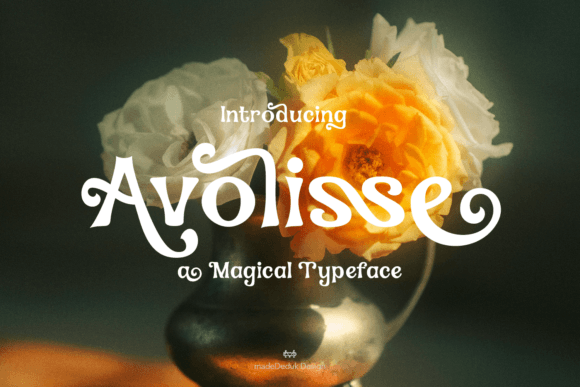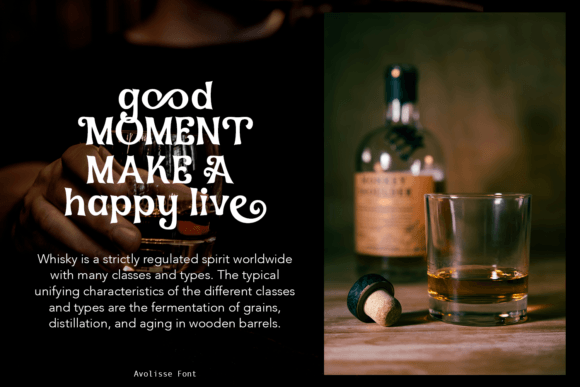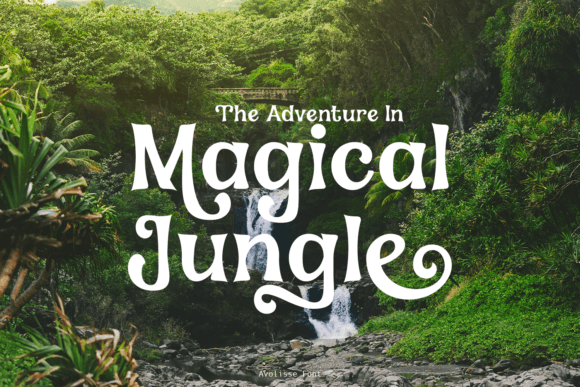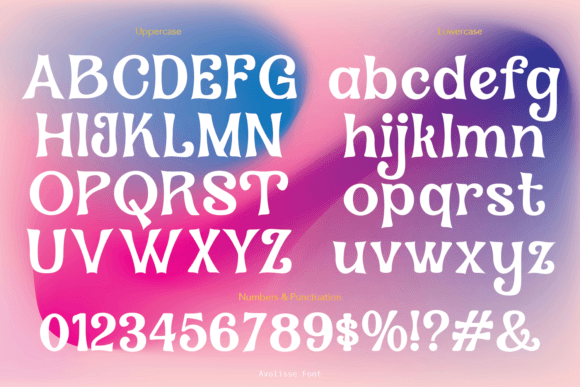
Avolisse Font: Retro 80s Display Font for Eye-Catching Headlines!
About the Avolisse Font
Elevate your designs with Avolisse Font, a font that combines sophistication with readability. Avolisse is a Magical Classic font 80’s style with sharp and blunt ends. Classic and refined you can explore and combine creating a rhythm for comfortable reading. This font is perfect for any project, such as logotypes, stickers, greeting/wedding cards, packaging design, headlines, brand identity, t-shirts, posters, magazines, books, Instagram, websites, and many more.
Avolisse’s strong, geometric forms make it ideal for headlines, logos, and short impactful text on packaging or posters. Its retro style works particularly well for brands aiming for a vintage or 80s-inspired aesthetic. However, its sharp serifs and relatively high x-height make it less suitable for extended body text or UI elements where readability at smaller sizes is crucial.
Pairing Avolisse effectively requires considering its bold personality. A clean sans-serif like Montserrat or Open Sans provides a sophisticated contrast, balancing Avolisse’s retro edge with modern clarity. For a more playful feel, a rounded sans-serif like Bebas Neue could be used sparingly.
Avolisse projects a confident, retro-modern personality. Its strong character is best utilized in design contexts where visual impact is paramount, complementing brands that value a strong visual identity and a touch of nostalgic flair.
Avolisse Font Usage Examples
Avolisse Font Example